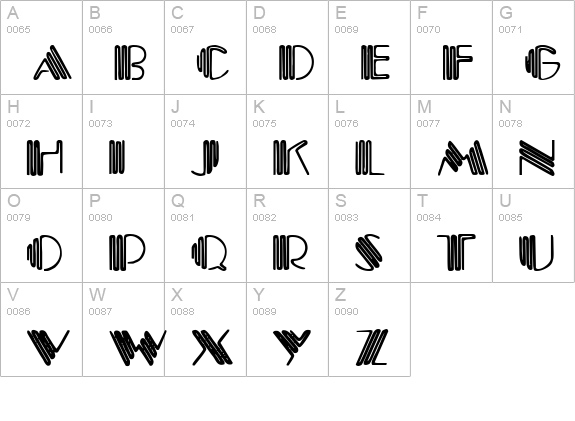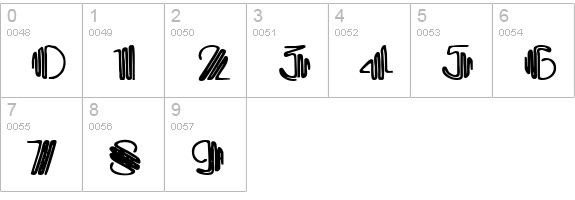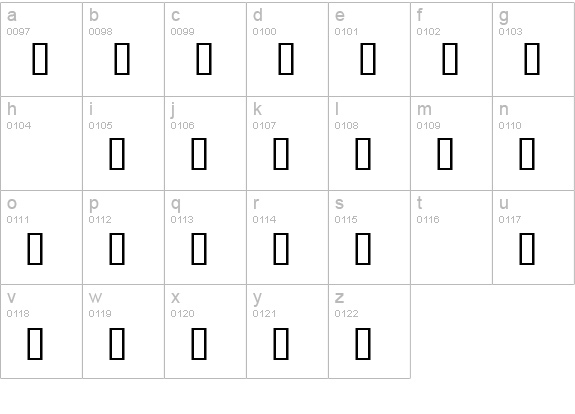
Crystal Gypsy font is a whimsical and enchanting typeface that embodies the spirit of wanderlust and mysticism. With its flowing lines and intricate details, this font captures the essence of a free-spirited gypsy soul. Each letter is adorned with delicate flourishes and ornate decorations, creating a truly magical and ethereal look. This captivating font is perfect for adding a touch of bohemian flair to your designs, whether you're creating invitations, logos, posters, or any other creative project. Its unique style will make your text stand out and leave a lasting impression on your audience. Best of all, Crystal Gypsy font is completely free to download at FontsMarket.com, making it easily accessible for all your design needs. Embrace the beauty and freedom of the Crystal Gypsy font and let your creativity soar to new heights.